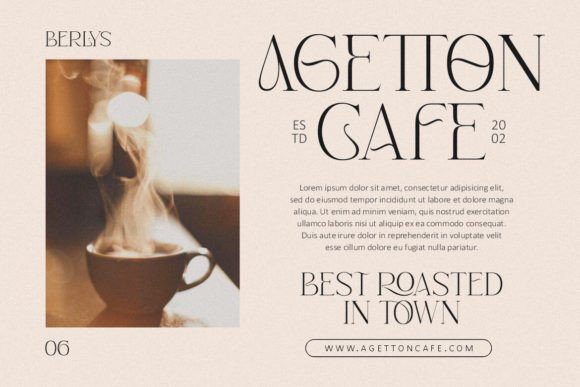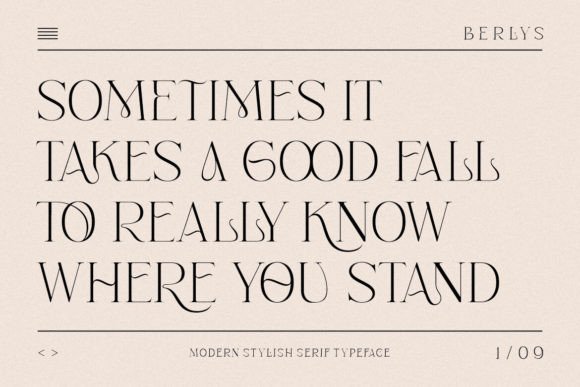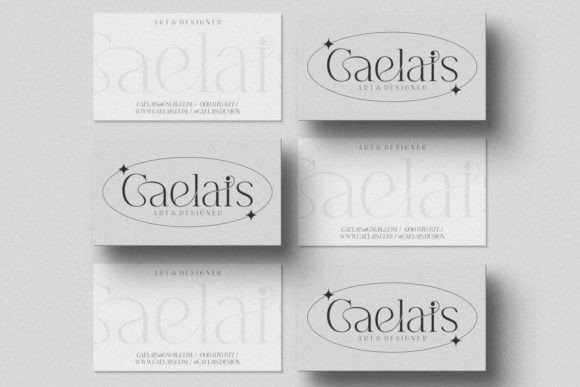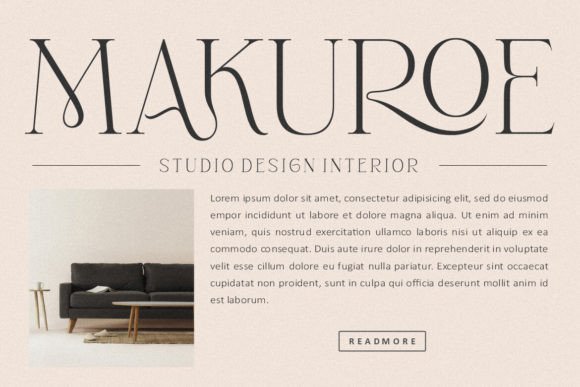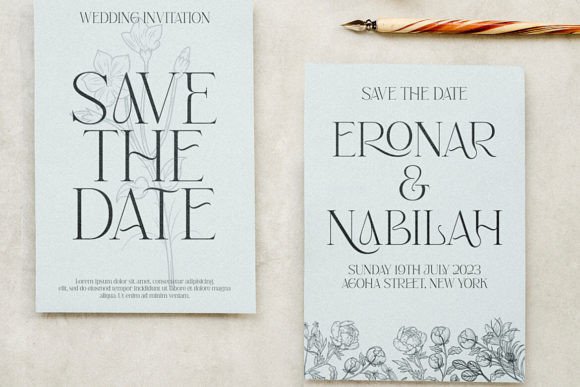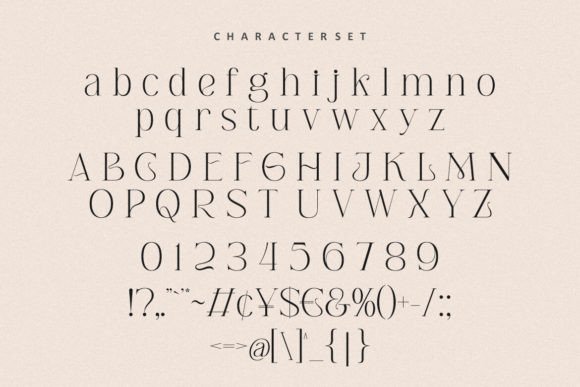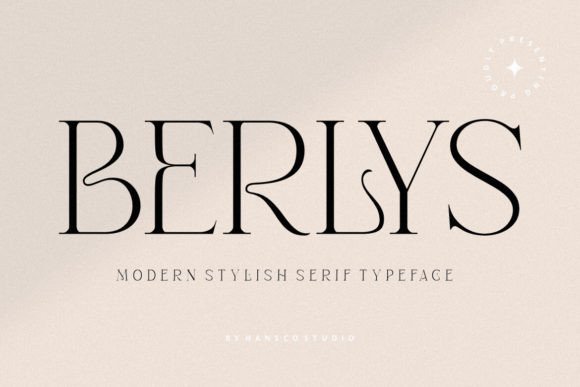
The Berlys Serif Font: A Elegant Display Font for Multipurpose Projects
As a designer, I’ve had my fair share of moments where I struggled to find the perfect font for a project. I recall working on a romantic wedding invitation design, searching for a font that exuded elegance and sophistication. That’s when I stumbled upon the Berlys Serif Font, a beautiful display serif font that instantly captured my attention. In this article, I’ll share my experience with Berlys Serif Font, its features, and how to make the most of it in your designs.
- ✅ Elegant and modern design that’s perfect for multipurpose projects
- ✅ Unique yet luxurious style that’s sure to make your designs stand out
- ✅ Extensive range of glyphs and OpenType features
A Few Quirks to Keep in Mind 🤔
- ⚠️ Limited availability of condensed or italic versions
The Inspiration Behind Berlys Serif Font
Berlys Serif Font was inspired by the concept of romantic vibes, with a focus on creating a unique yet luxurious style. The designer aimed to craft a font that would evoke feelings of elegance and sophistication, while also being highly legible and versatile.
Q: What type of projects is Berlys Serif Font best suited for?
A: Berlys Serif Font is perfect for multipurpose projects, including logos, crafts, posters, books, branding, quotes, print templates, packaging, invitations, product labels, advertising, and wedding projects.
Q: Does Berlys Serif Font come with a wide range of glyphs and OpenType features?
A: Yes, Berlys Serif Font includes an extensive range of glyphs and OpenType features, allowing for advanced typographic control and customization.
Q: Can I use Berlys Serif Font in digital designs, such as websites and mobile apps?
A: While Berlys Serif Font can be used in digital designs, its primary design intent is for print and high-resolution digital applications. Ensure you test the font in your specific use case to ensure optimal legibility and performance.